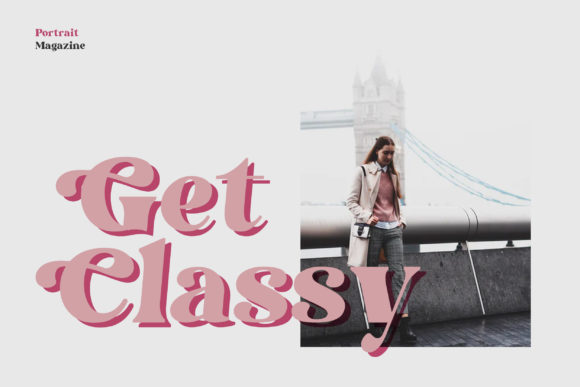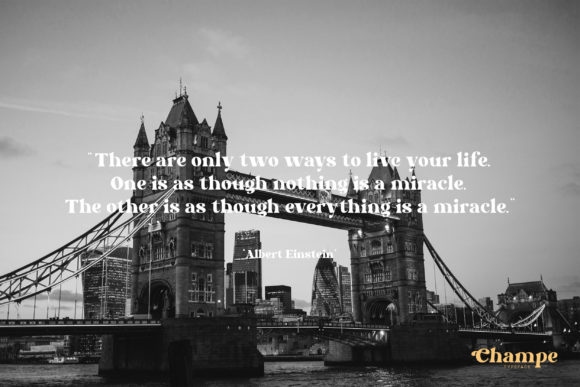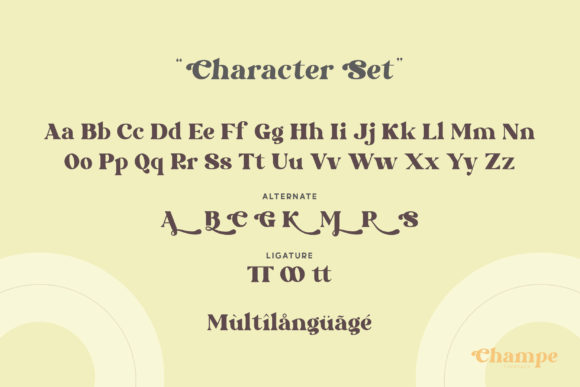
Introducing Champe Font: Elevate Your Designs with a Retro Twist
In the world of design, fonts play a crucial role in conveying the message and aesthetic of a project. Whether you’re working on a display, product design, or any creative endeavor, the right font can make all the difference. If you’re on the hunt for a typeface that adds a touch of nostalgia and uniqueness to your work, look no further than Champe Font. This retro-styled display font is designed to make each of your designs stand out, and with its versatility and charm, it’s sure to become a favorite in your collection.
The Charm of Champe Font
Champe Font is a carefully crafted typeface that embodies the essence of retro design, bringing a fresh yet nostalgic feel to the table. Its distinctive characters are designed to grab attention, making it perfect for projects that require a bold statement. From vintage-inspired advertisements to modern product designs, Champe Font adds a unique flair that sets your work apart from the rest.
Key Features of Champe Font
- Retro Aesthetic: Champe Font boasts a classic retro look that instantly adds character to your designs.
- Display and Product Design Ready: Its clear and legible design makes it suitable for a wide range of applications, from display fonts to product packaging.
- Versatility: Champe Font can be used confidently across various projects, ensuring consistency and quality in your design work.
- Easy to Read: Despite its stylized appearance, Champe Font maintains readability, ensuring your message is conveyed effectively.
Why Choose Champe Font?
Choosing the right font for your project can be daunting, but Champe Font offers several compelling reasons to make it your top pick:
- Uniqueness: Stand out in a crowded design landscape with a font that has a distinct personality.
- Adaptability: Seamlessly integrate Champe Font into various design projects, from digital displays to print materials.
- Time-Saving: With its comprehensive set of characters and styles, Champe Font saves you time in finding and pairing different fonts.
- Professionalism: Elevate your designs with a professionally crafted font that speaks to quality and attention to detail.
How to Use Champe Font Effectively
To make the most of Champe Font, consider the following tips:
- Pair with Neutrals: Combine Champe Font with simpler, neutral fonts for a balanced and harmonious design.
- Experiment with Sizes: Play with different sizes to emphasize certain words or phrases, adding depth to your design.
- Color Matters: Choose colors that complement the retro vibe of Champe Font, such as earth tones, pastels, or bold primaries.
- Limit Usage: For maximum impact, use Champe Font sparingly. Highlight key messages or headings to draw attention without overwhelming your audience.
| Font Name | Champe Font |
| Author | AMost Store |
Champe Font is more than just a typeface; it’s a design statement. Its retro charm, coupled with its versatility and readability, makes it an excellent choice for designers looking to add a unique touch to their projects. Whether you’re working on a display, product design, or any creative endeavor, Champe Font is sure to elevate your work and make it stand out. Add it confidently to your projects, and you won’t be disappointed. Discover the potential of Champe Font today and transform your designs with a retro twist.